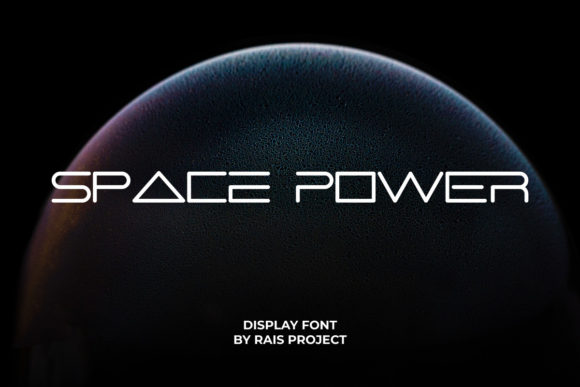
Step into the cosmos with Space Power Font, a visionary sans serif font that transports your designs to a realm of boundless creativity. Immerse yourself in a universe of innovation as you explore the distinctive uppercase letters that embody the spirit of the future. Each character radiates a celestial aura, seamlessly blending the allure of the digital world with the elegance of traditional typography.
With Space Power Font as your guide, unlock the gateway to extraordinary design possibilities. Whether your canvas is a captivating headline, a striking promotional poster, or an immersive event invitation, this font will ignite your imagination and elevate your creations to new heights. Let your words dance across the page with the grace of a comet, leaving a trail of cosmic wonder in their wake.
Unleash the power of Space Power Font to transform your branding efforts into a galactic spectacle. Forge an identity that resonates with your audience, captivating their attention with the font's magnetic pull. Embark on an advertising campaign that transcends the ordinary, leaving an indelible mark on the minds of consumers.
Design a magazine layout that captures the essence of the future, where Space Power Font takes center stage, guiding readers through a journey of discovery and imagination. Let the font's sleek lines and dynamic curves lead the eye effortlessly through captivating articles, compelling interviews, and awe-inspiring visuals.
Craft signage that commands attention, leaving passersby mesmerized by the allure of Space Power Font. Create invitations that exude an air of exclusivity, inviting guests to step into a world of wonder and intrigue. Design stationery that reflects your unique personality, adding a touch of cosmic elegance to your everyday correspondence.
Harness the power of Space Power Font to elevate your social media presence, captivating followers with visually stunning posts that demand attention. Let your words shine with the brilliance of distant stars, drawing users into your captivating content. Design labels that transform ordinary products into celestial treasures, enticing customers with a taste of the extraordinary.
Step into the spotlight with Space Power Font, the ultimate choice for those who dare to dream big and explore the uncharted territories of design. Let your creativity soar as you leave your mark on the world, one inspired design at a time. Embrace the future. Embrace Space Power Font.